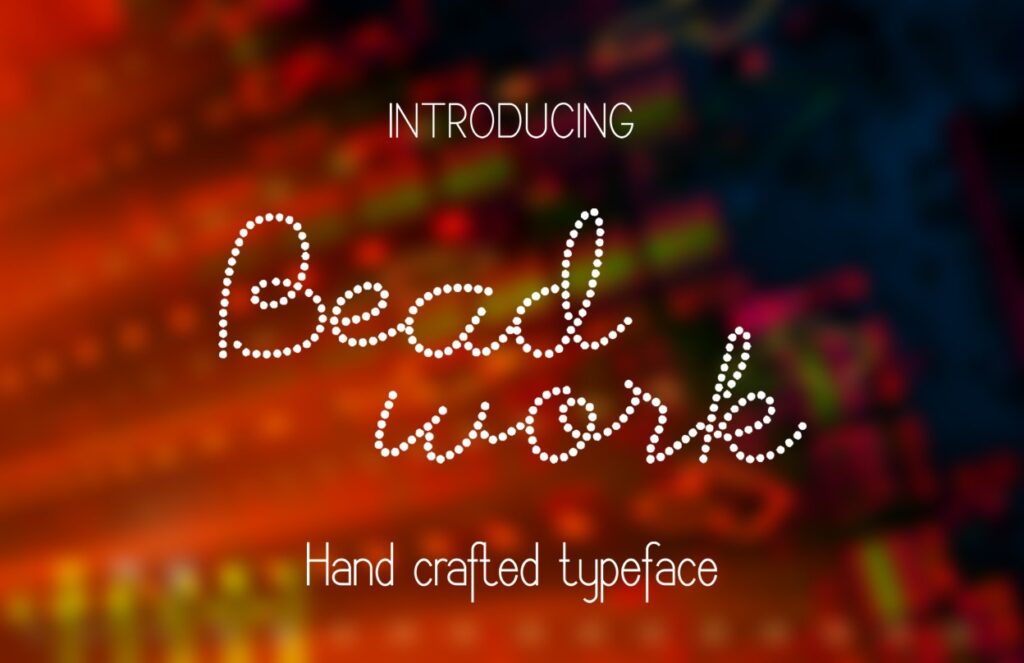
Introducing Beadwork Font: A Rhinestones Inspired Typeface
In the world of typography, fonts play a crucial role in conveying messages, expressing emotions, and creating visual identities. With the rise of digital design, the demand for unique and creative typefaces has increased exponentially. One such font that has caught the attention of designers and typography enthusiasts is Beadwork Font, a Rhinestones inspired typeface drawn on a digital tablet.
What is Beadwork Font?
Beadwork Font is a digital typeface that draws inspiration from the art of beadwork and rhinestones. The font is carefully crafted to resemble the sparkle and shine of rhinestones, making it perfect for designs that require a touch of glamour and sophistication. The font’s unique design is a result of the creator’s meticulous efforts to replicate the intricate details of beadwork using digital tools.
The Inspiration Behind Beadwork Font
The inspiration behind Beadwork Font lies in the traditional art of beadwork, which involves using small beads or rhinestones to create intricate designs and patterns. The creator of the font was fascinated by the way beads and rhinestones can be used to add texture, depth, and visual interest to a design. By translating this art form into a digital typeface, the creator aimed to bring a touch of handmade charm to digital designs.
Characteristics of Beadwork Font
Beadwork Font boasts several characteristics that make it a standout typeface. Some of its notable features include:
- Unique and intricate design: The font’s design is meticulously crafted to resemble the sparkle and shine of rhinestones.
- Handmade feel: Despite being a digital typeface, Beadwork Font has a handmade feel that sets it apart from other fonts.
- Versatility: The font can be used for a wide range of design projects, from luxury branding to packaging and advertising.
- Digital tablet drawn: The font was drawn on a digital tablet, giving it a unique and organic feel.
Uses of Beadwork Font
Beadwork Font is a versatile typeface that can be used for a variety of design projects. Some of the most popular uses of the font include:
- Luxury branding: The font’s luxurious and sophisticated feel makes it perfect for high-end branding projects.
- Packaging design: Beadwork Font can add a touch of glamour and sophistication to packaging designs.
- Advertising: The font’s unique design makes it perfect for attention-grabbing ad campaigns.
- Digital art: Beadwork Font can be used to create stunning digital art pieces that showcase the font’s intricate design.
Benefits of Using Beadwork Font
Using Beadwork Font offers several benefits to designers and businesses. Some of the most significant advantages include:
- Unique visual identity: The font’s unique design helps create a distinctive visual identity that sets a brand apart from its competitors.
- Emotional connection: Beadwork Font’s handmade feel and luxurious design can help create an emotional connection with the target audience.
- Versatility: The font can be used for a wide range of design projects, making it a valuable addition to any designer’s toolkit.
Beadwork Font is a Rhinestones inspired typeface that offers a unique and creative way to add glamour and sophistication to digital designs. With its intricate design, handmade feel, and versatility, the font is perfect for designers and businesses looking to create a distinctive visual identity. Whether used for luxury branding, packaging design, advertising, or digital art, Beadwork Font is sure to make a statement.
Tips for Using Beadwork Font
To get the most out of Beadwork Font, here are some tips to keep in mind:
- Use it sparingly: Beadwork Font’s intricate design can be overwhelming if used excessively. Use it sparingly to create a greater impact.
- Experiment with colors: The font’s design looks great in a variety of colors. Experiment with different colors to find the one that works best for your design.
- Pair it with simple fonts: Beadwork Font’s intricate design can be paired with simple fonts to create a striking contrast.
Future of Beadwork Font
As the demand for unique and creative typefaces continues to grow, the future of Beadwork Font looks bright. With its versatility and handmade feel, the font is likely to become a popular choice among designers and businesses. The creator of the font may also consider adding new features and weights to the font, making it even more versatile and useful.